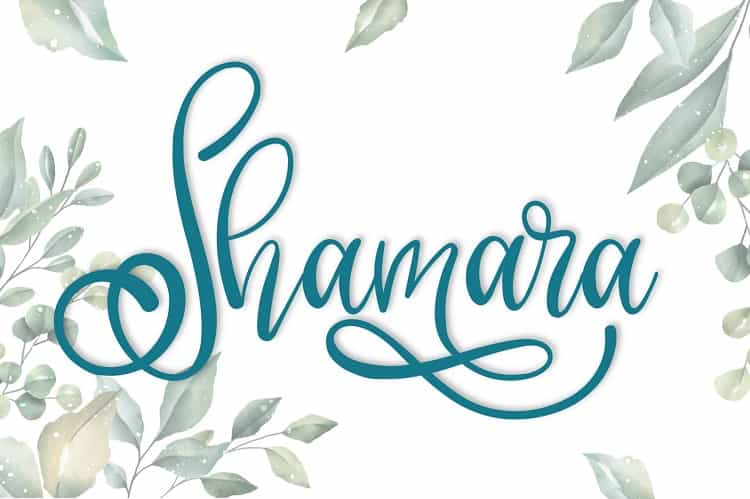
Shamara Calligraphy Font is a trendy and unique multi-purpose font that can be used for contemporary as well as retro designs. Through it, you can design stunning logos, labels, templates and signs; also with which to use for outdoor advertising, branding and much more.